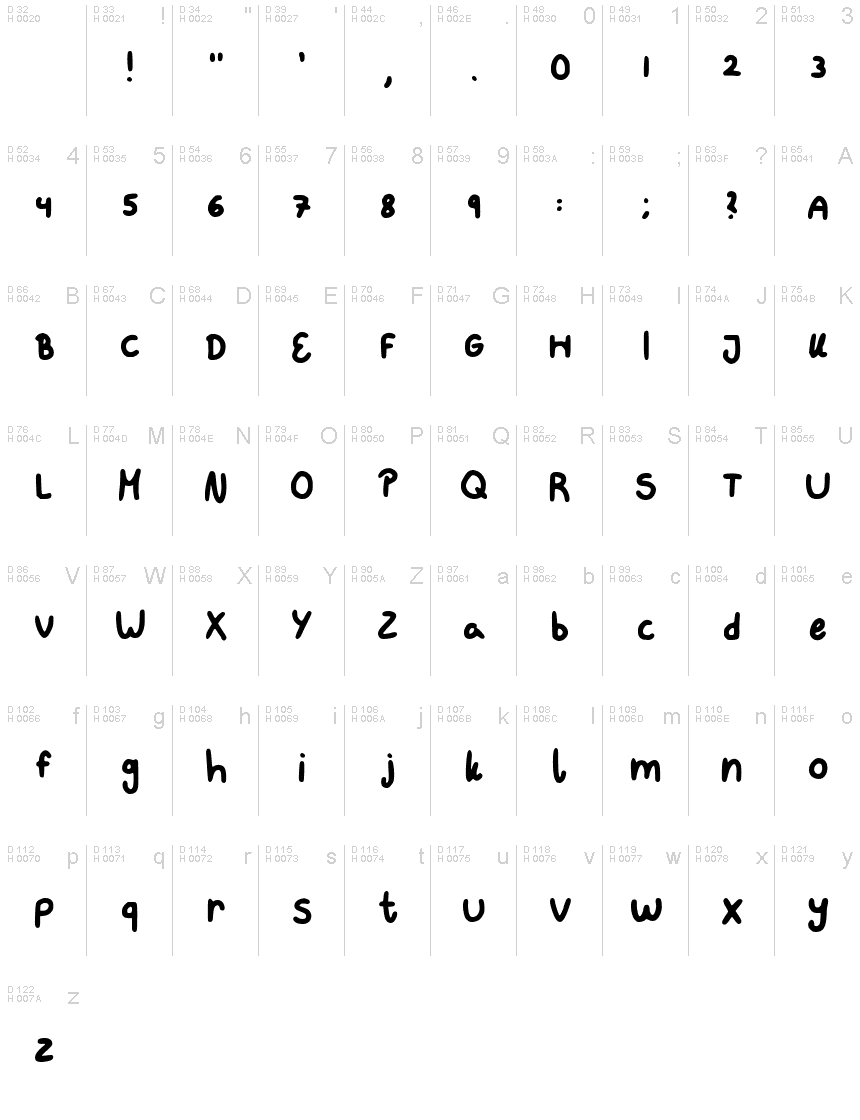
Elliot Regular
Elliot, a charming handwritten font designed by SleepySheepii, adds a touch of whimsy and warmth to any project.
With its fluid strokes and playful curves, this font brings a personal and creative feel to invitations, greeting cards, and wedding stationery. Its versatility shines in logo designs for boutique businesses or artisanal products. Elliot's handwritten charm also makes it an ideal choice for blog headers, social media graphics, and scrapbooking projects.
Let your imagination run wild with Elliot - the perfect balance of elegance and approachability.